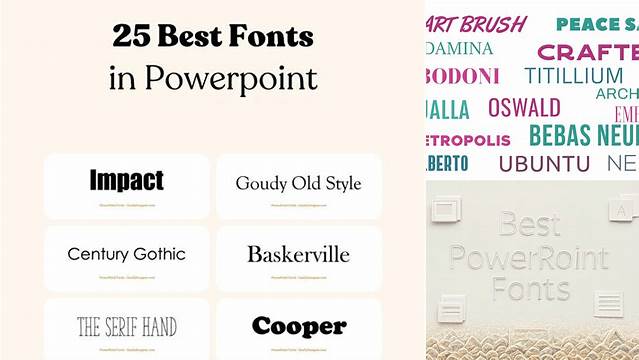
Download Fonts For PowerPoint: Make Stunning Slides
Hey everyone! Ever feel like your PowerPoint presentations are missing that oomph? One simple way to level them up is by using the right fonts. I will guide you on how to download fonts for PowerPoint to make your slides pop. Let’s dive in!
1. Why Custom Fonts Matter in PowerPoint
Custom fonts can drastically change the feel of your presentation. Instead of sticking with the default Calibri or Arial, you can choose fonts that align with your brand, topic, or personal style. Imagine giving a presentation on a tech startup using a sleek, modern font versus a handwritten, whimsical one. The vibe is totally different, right? When you download fonts for PowerPoint, you're essentially opening the door to a world of design possibilities, helping you to create slides that are not only informative but also visually captivating. For example, if you are presenting to a young audience, consider playful, sans-serif fonts. For corporate presentations, a more formal and professional font family might be more appropriate. Ultimately, the right font reinforces your message and helps you connect with your audience on a deeper level. It also showcases your attention to detail, making your presentation look polished and well-thought-out. Custom fonts also help to maintain brand consistency across all your presentation materials if you are dealing with a brand. Make sure to check for licensing before using any font for commercial purposes.
2. Finding Free Fonts Online
Looking for free fonts? There are tons of websites offering high-quality fonts for personal and even commercial use. Some popular ones include Google Fonts, DaFont, and Font Squirrel. Google Fonts is a fantastic resource because it offers a wide variety of fonts that are open-source and easy to use. DaFont has a huge collection, ranging from classic to quirky. Font Squirrel is great because it specializes in fonts that are 100% free for commercial use. When browsing these sites, pay attention to the license agreements. Even if a font is free, there might be restrictions on how you can use it. For example, some fonts might be free for personal use but require a license for commercial projects. To make the most of these resources, use descriptive keywords when searching. Instead of just typing "free fonts," try "modern sans-serif fonts" or "handwritten fonts for presentations." This will help you narrow down your options and find fonts that are truly perfect for your needs. Also, before you download fonts for PowerPoint, be sure to check if the website offers a preview feature. This allows you to see how the font looks in different sizes and styles, ensuring that it is legible and visually appealing. Always download fonts from reputable sites to avoid malware.
5. Using Font Pairing for Impact
Font pairing is the art of combining two or more fonts that complement each other to create a visually appealing and balanced design. When you download fonts for PowerPoint, think about how they will work together. A common approach is to pair a serif font for headings with a sans-serif font for body text. Serif fonts, like Times New Roman or Georgia, have small decorative strokes at the end of each character, making them great for titles and headings. Sans-serif fonts, like Arial or Helvetica, are cleaner and more modern, making them ideal for longer blocks of text. To find good font pairings, you can use online tools like FontPair or Canva's Font Combinations. These tools offer suggestions for fonts that work well together, saving you time and effort. When choosing fonts, consider the overall tone and style of your presentation. For a professional presentation, stick with classic and conservative font pairings. For a more creative presentation, you can experiment with bolder and more unusual combinations. However, always ensure that the fonts are legible and easy to read. Avoid using too many different fonts in a single presentation, as this can make it look cluttered and unprofessional. A good rule of thumb is to stick to two or three fonts at most. Experiment with different font sizes and weights to create visual hierarchy and emphasize important information. By mastering the art of font pairing, you can create presentations that are not only informative but also visually stunning. Remember, the goal is to enhance your message and engage your audience, so choose fonts that support your content and style.
7. Embedding Fonts in PowerPoint Presentations
Embedding fonts is a crucial step to ensure your presentation looks consistent on different computers. When you download fonts for PowerPoint and use them in your slides, the presentation might look different on another computer if that computer doesn't have the same fonts installed. Embedding solves this problem by including the font files within the presentation file itself. To embed fonts, go to the "File" tab in PowerPoint, then click on "Options." In the PowerPoint Options window, select the "Save" tab. At the bottom of the window, you'll see a section called "Preserve fidelity when sharing this presentation." Check the box that says "Embed fonts in the file." You'll have two options to choose from: "Embed only the characters used in the presentation" and "Embed all characters." The first option will only embed the characters you actually used, which can reduce the file size. However, if you plan to edit the presentation on another computer and add new text, you might want to choose the second option, which embeds all characters. Keep in mind that embedding fonts can increase the file size of your presentation, especially if you're using multiple fonts or large font files. However, it's a small price to pay for ensuring that your presentation looks exactly as you intended, no matter where it's opened. After embedding the fonts, save your presentation. When you share the file with others, they'll see the fonts you used, even if they don't have those fonts installed on their computers. This is especially important if you're giving a presentation on a borrowed laptop or a conference computer. By embedding fonts, you can avoid the embarrassment of having your carefully chosen fonts replaced with generic ones. Embedding fonts is a simple but essential step for ensuring that your presentations are professional and consistent.
8. Choosing the Right Font Size
Font size plays a critical role in the readability and visual appeal of your PowerPoint slides. After you download fonts for PowerPoint, make sure to select an appropriate font size to ensure that your audience can easily read your text, no matter where they're sitting in the room. As a general rule, use a minimum font size of 24 points for body text and 36 points for headings. However, the ideal font size can vary depending on the font you're using and the size of the presentation screen. Some fonts are naturally larger or smaller than others, so you might need to adjust the font size accordingly. Also, consider the lighting conditions in the room where you'll be presenting. If the room is brightly lit, you might need to use a larger font size to ensure that the text is visible. When choosing font sizes, think about the overall layout of your slides. Avoid cramming too much text onto a single slide, as this can make it difficult to read and overwhelming for your audience. Instead, break up your content into smaller chunks and use bullet points or numbered lists to highlight key information. Use different font sizes to create visual hierarchy and emphasize important points. For example, you might use a larger font size for headings and subheadings and a smaller font size for body text. This helps to guide the reader's eye and make the information easier to digest. Test your presentation on different screens and in different lighting conditions to make sure that the font sizes are appropriate. Ask a friend or colleague to review your slides and provide feedback on readability. By paying attention to font size, you can create presentations that are clear, engaging, and easy to understand.
9. Using Special Characters and Glyphs
Fonts often contain special characters and glyphs that can add a unique touch to your PowerPoint presentations. After you download fonts for PowerPoint, explore the available characters beyond the standard letters, numbers, and punctuation marks. Special characters can include symbols, icons, and decorative elements that can enhance your slides and make them more visually appealing. To access special characters, you can use the Character Map tool in Windows or the Font Book application on macOS. These tools allow you to browse the characters available in a font and copy them into your presentation. In PowerPoint, you can also insert special characters by going to the "Insert" tab and clicking on "Symbol." This will open a window where you can select the character you want to insert. When using special characters, be mindful of their context and purpose. Avoid using them excessively, as this can make your presentation look cluttered and unprofessional. Instead, use them sparingly to highlight key information or add visual interest. For example, you might use a checkmark symbol to indicate completed tasks or a star symbol to emphasize important points. Choose special characters that are consistent with the overall tone and style of your presentation. For a professional presentation, stick with simple and understated characters. For a more creative presentation, you can experiment with bolder and more decorative characters. Make sure that the special characters are legible and easy to understand. Avoid using characters that are too small or too complex, as this can make them difficult to decipher. By using special characters and glyphs judiciously, you can add a subtle but effective layer of visual interest to your PowerPoint presentations.
10. Font Licensing and Usage Rights
Understanding font licensing is crucial before you download fonts for PowerPoint and use them in your presentations. Fonts are intellectual property, and their usage is governed by licensing agreements. These agreements specify how you can use the font, whether it's for personal or commercial purposes. Before downloading a font, always read the license agreement carefully. Pay attention to whether the font is free for personal use, commercial use, or both. Some fonts might require you to purchase a license if you plan to use them in commercial projects, such as presentations for your business or clients. Free fonts often come with certain restrictions. For example, you might be required to give credit to the font designer or you might not be allowed to modify the font in any way. Commercial fonts typically offer more flexibility, but they can be more expensive. When using fonts in PowerPoint presentations, make sure that you comply with the terms of the license agreement. If you're not sure whether a particular use is allowed, it's best to err on the side of caution and contact the font designer or foundry for clarification. Avoid using fonts that you don't have the right to use, as this could lead to legal issues. Keep a record of the fonts you've downloaded and their corresponding licenses. This will help you stay organized and ensure that you're always using fonts legally. By understanding font licensing and usage rights, you can protect yourself from potential legal problems and support the designers who create the fonts you love.